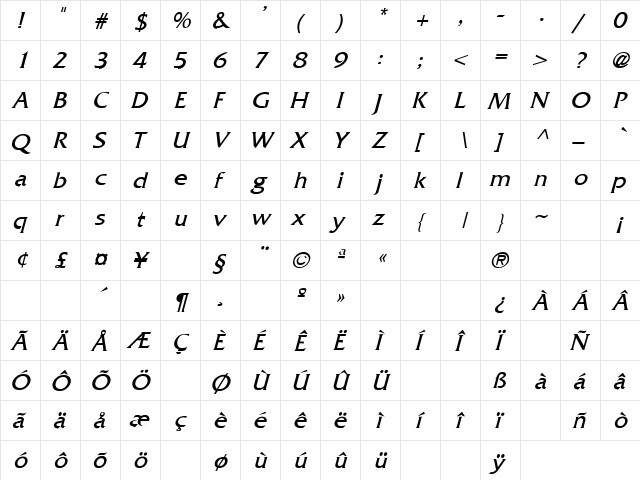
Keep Talking 3 Italic
Design Context for Keep Talking 3 Typeface
Keep Talking 3 offers clean, dependable letterforms without strong stylistic allegiance, making it a practical choice for designers who need flexibility. Its italic angle brings a sense of urgency and motion to the letterforms.
Pro Tip: Use Keep Talking 3 for emphasis, pull quotes, and subheadings where its slanted energy can add rhythm to the layout.